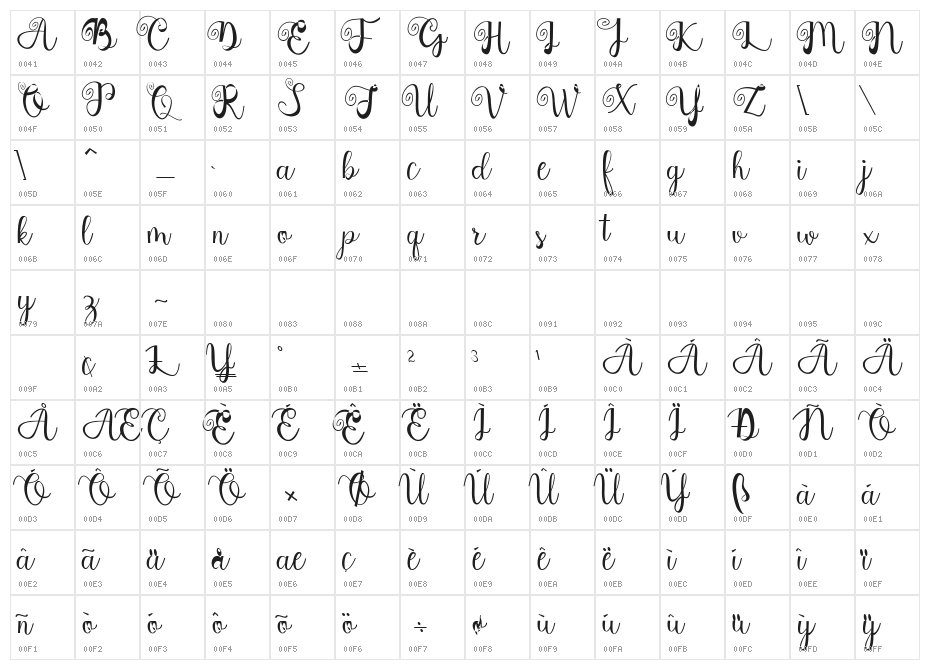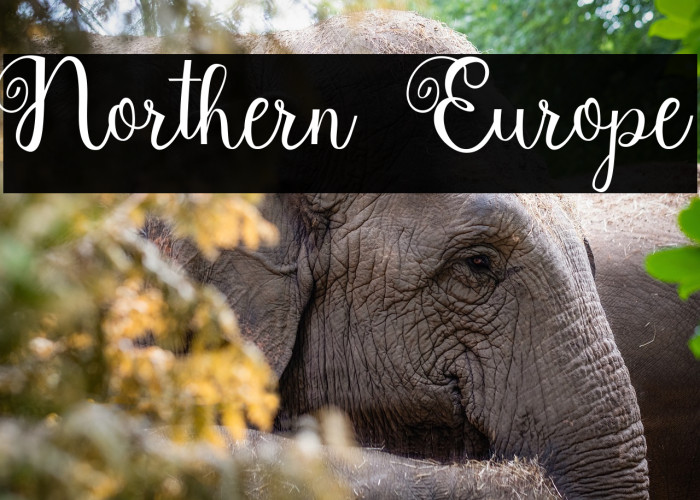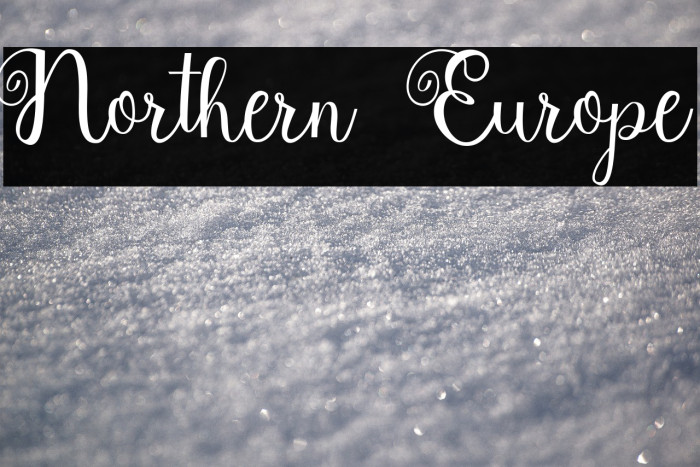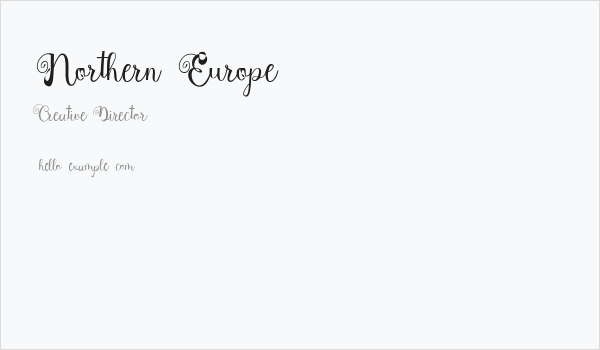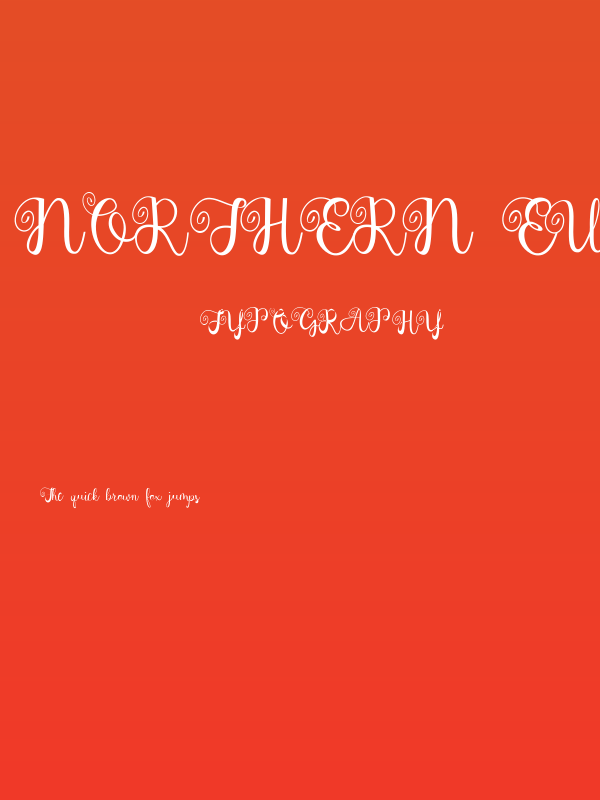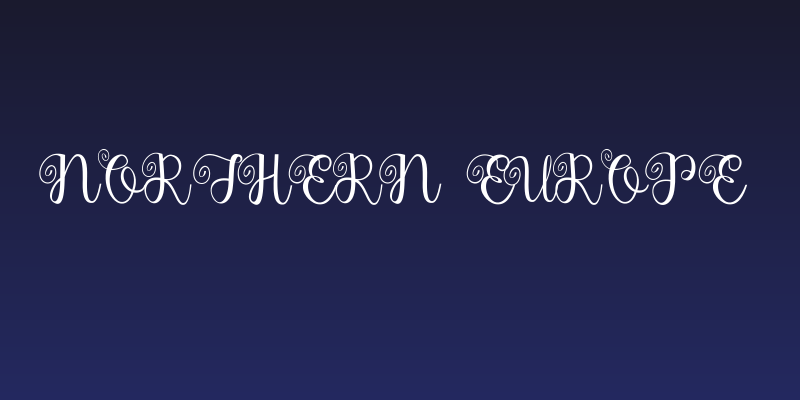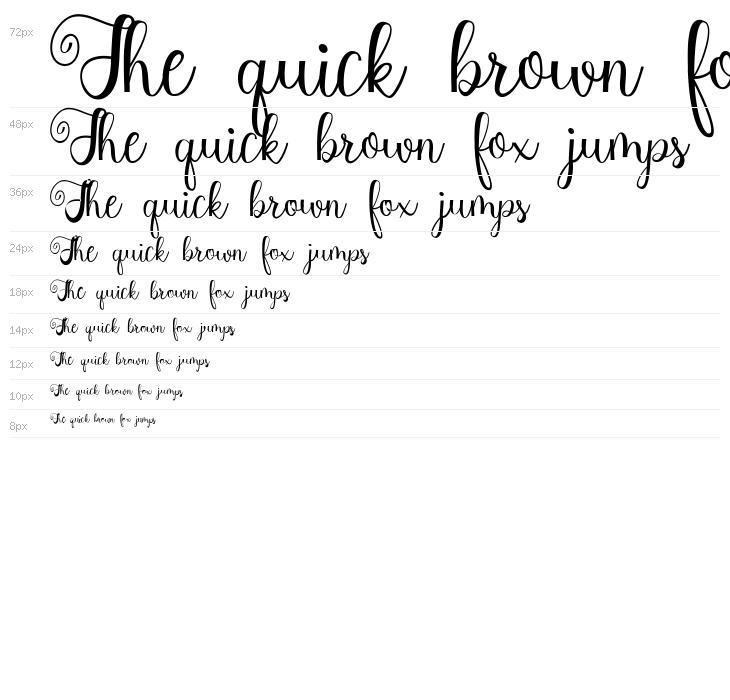
Northern Europe Font
Northern Europe Description
This font is a whimsical and decorative script with a playful and elegant flair. The uppercase letters are adorned with intricate swirls and loops, giving them a fanciful appearance. The lowercase letters maintain a smooth, flowing style that complements the ornate uppercase. The numbers and special characters are designed with similar embellishments, ensuring a cohesive look throughout. The font's overall style is reminiscent of a fairy tale or a vintage storybook, making it ideal for projects that require a touch of magic and charm. Its unique design is perfect for creating eye-catching headlines, invitations, and artistic logos.
| Use Case | Headlines, Invitations, Logos |
| Proposed Projects | Ideal for wedding invitations, greeting cards, fairy tale book covers, and artistic branding. |